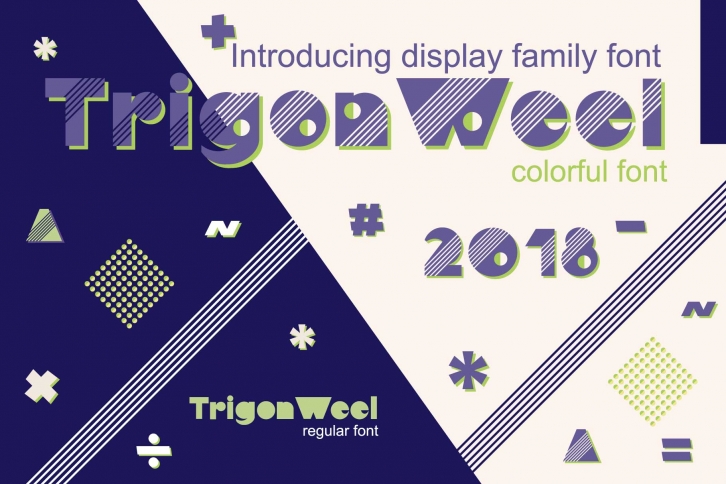
TrigonWeel color OTF is a great font that was designed by Zimages. Imagine the amount of combinations you can create using this font! The archive is 4.18 MB and it was released on April 23, 2018. TrigonWeel color OTF looks beautiful on wedding invitations, greeting cards, logos, posters, labels, t-shirt designs, logos, business cards and is perfect for use in ink or watercolor works, fashion, magazines, packaging and food menus, children's books and more!